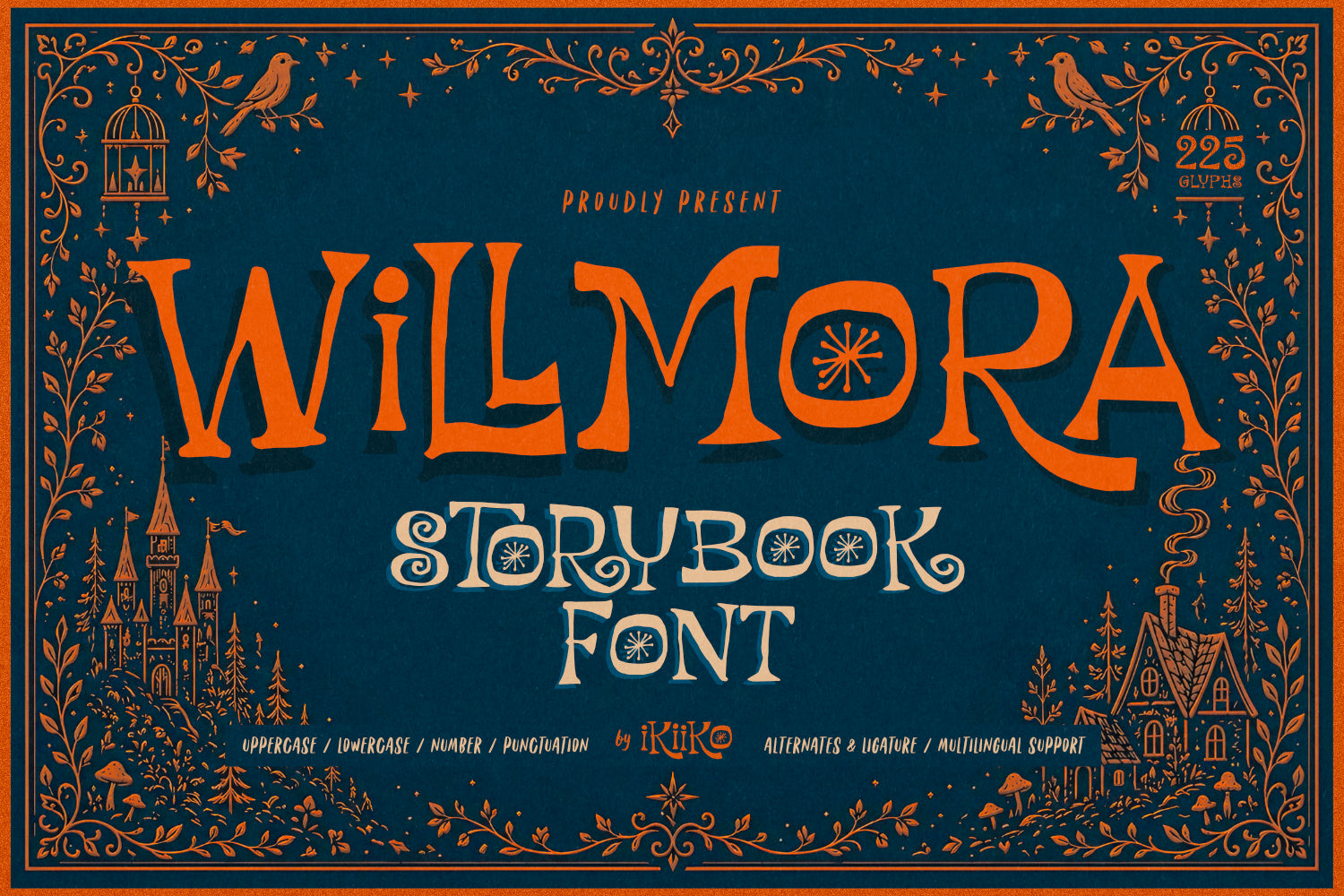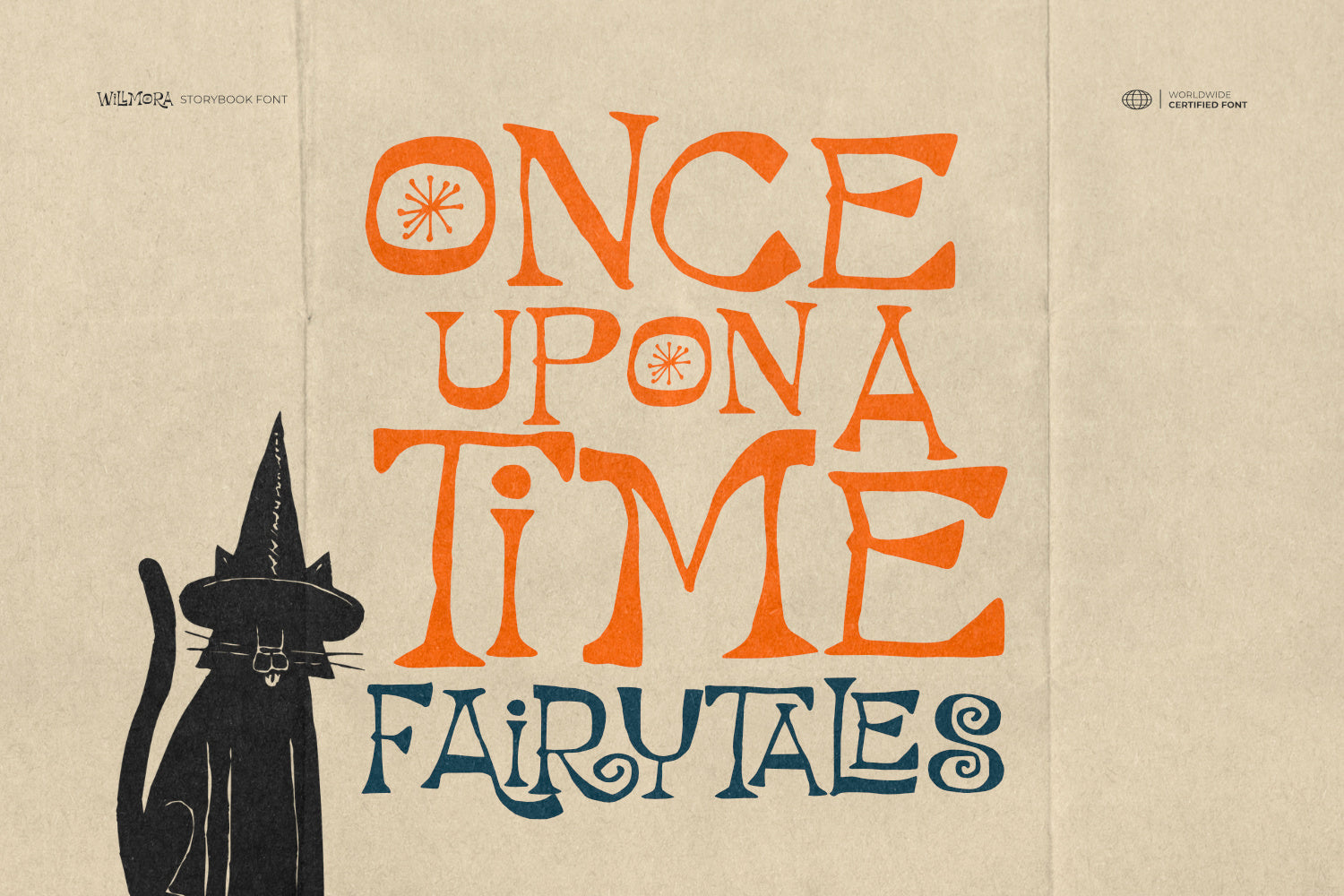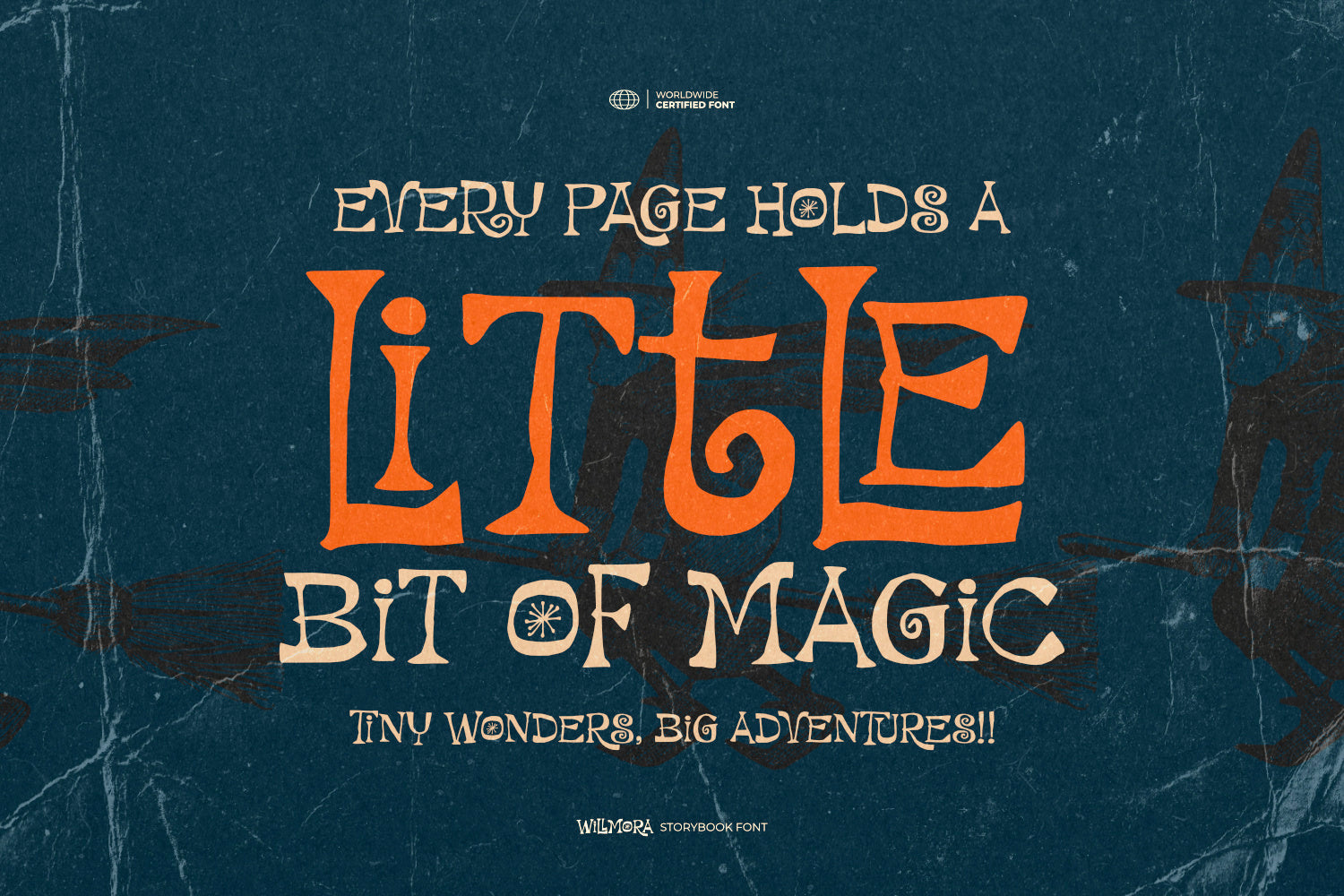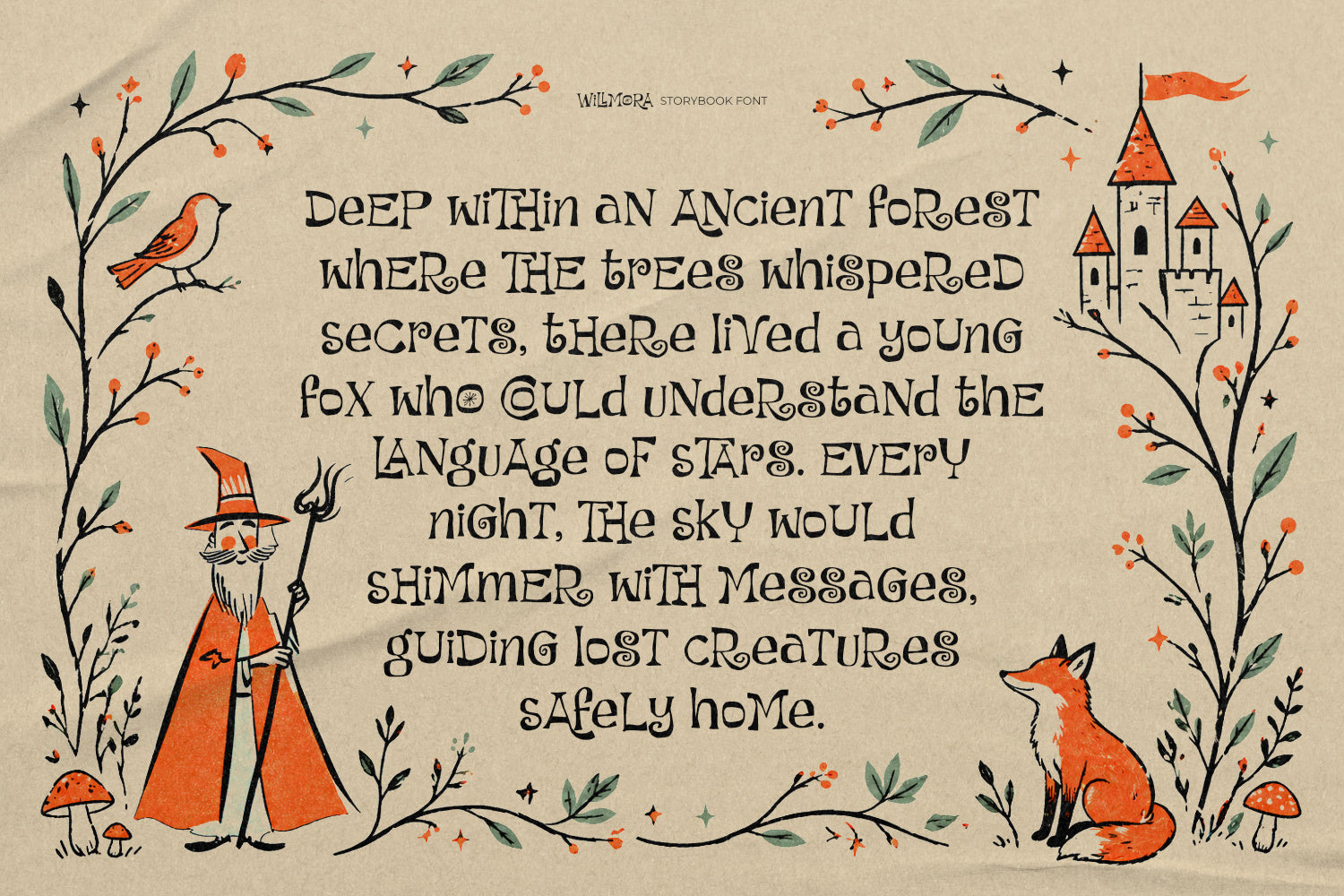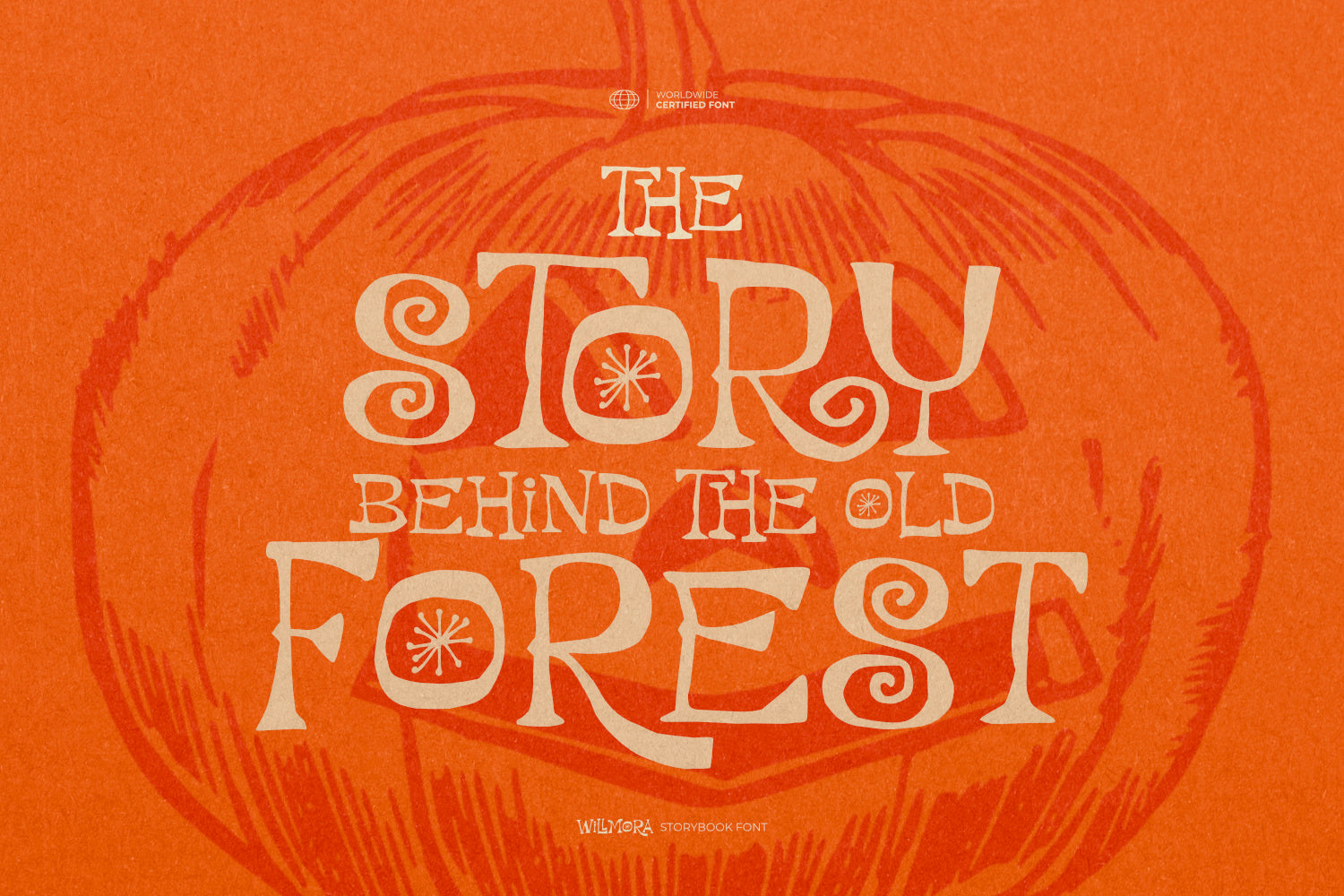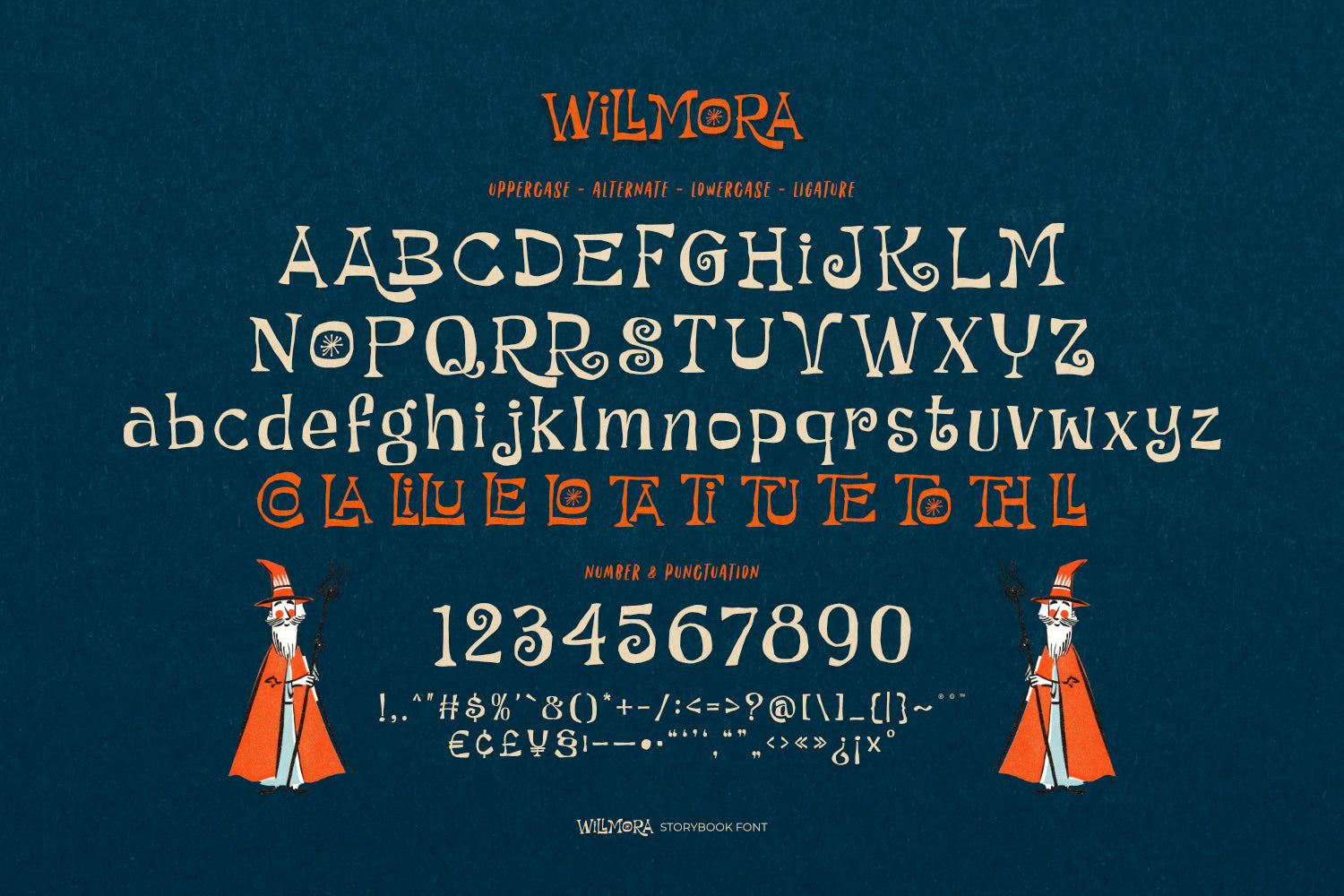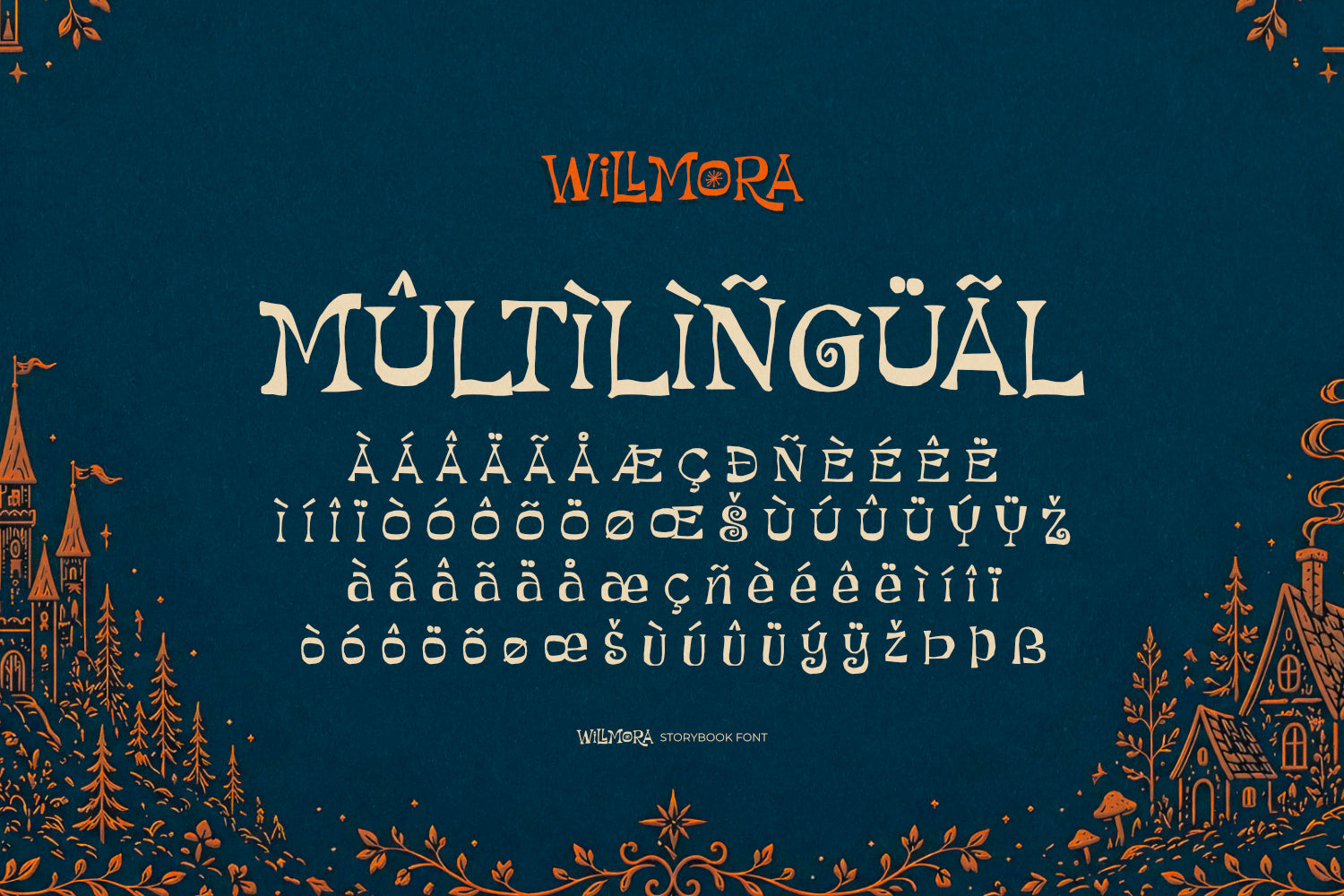
Proudly Present Willmora - Storybook Font, created by ikiiko
Willmora invites you into a living fairytale, where every curve feels handdrawn, every detail crafted with a soulful handcraft touch, and every word flows with organic beauty. This storybook font carries a whimsicalspirit that sparks imagination and brings a sense of warm, playful magic—perfect for kids projects, enchanting branding, and creative visuals that need a gentle, charming cure of personality. Designed with intentional imperfections, Willmora delivers an authentic handmade vibe, rich alternates, and expressive ligatures that keep your typography dynamic and full of life. It’s not just a font—it’s a dream woven into letters, built to make your designs feel alive, nostalgic, and irresistibly magical.
This font is perfect for fairytales, posters, book covers, movie titles, zines, or anything that needs a strong & expressive typeface.